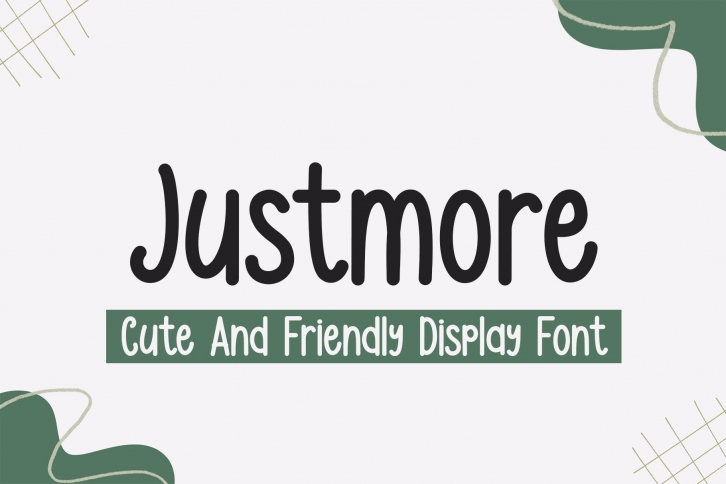
Justmore is a cute, friendly and simple lettered display font. No matter the topic, this font will be an incredible asset to your fonts’ library, as it has the potential to elevate any creation. this font is PUA encoded that you can access all the glyphs easily